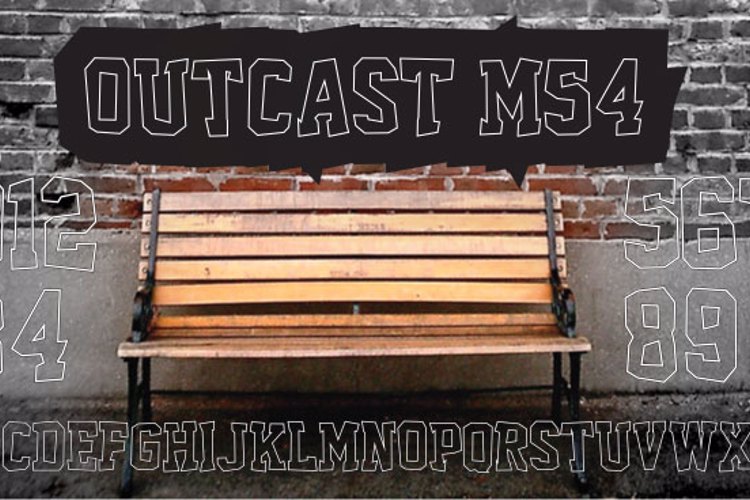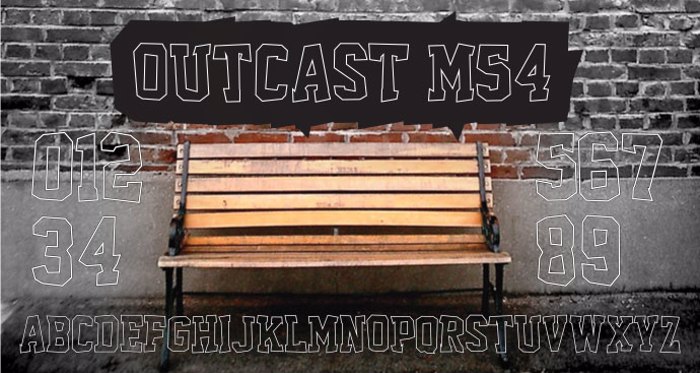
Outcast M54 Font
Just a font I ended up with after messing around with my ‘Superstar M54’ font that I created. I think it would be cool for signature art. The upper and lower case letters are different so switch between the two for a more hand drawn feel. The left and right curly brackets hold alternate glyphs for numbers '2' and '5'.
very cool! It has a nice Comic feel to it.